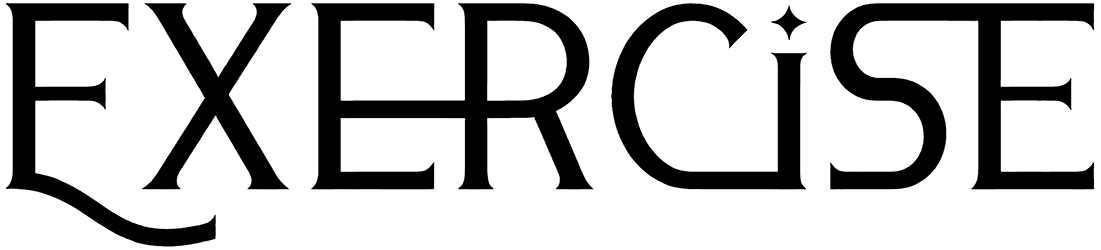
Exercise Font
Since you use a retro font like this item for your creative classic design, you will see how appealing the outcome will be. This display font doesn’t support lowercase letters, but instead, it offers two sets of capitals. Exercise font is a unique selection for many innovative designs, such as a circus poster, a joyful festival banner, and so on.